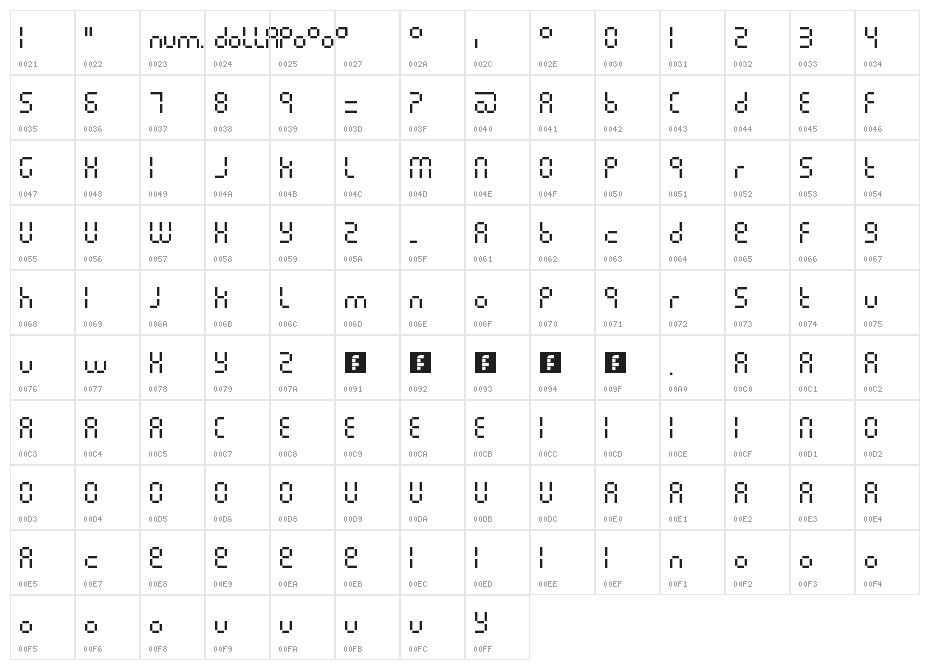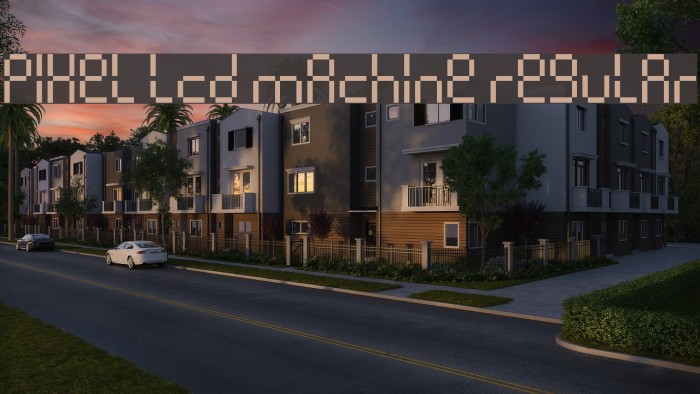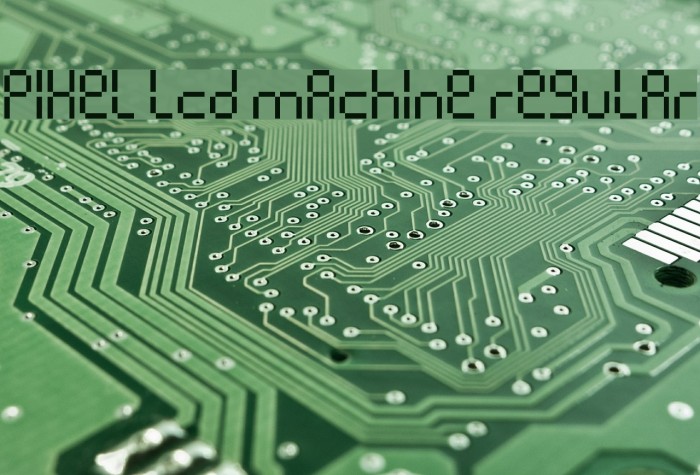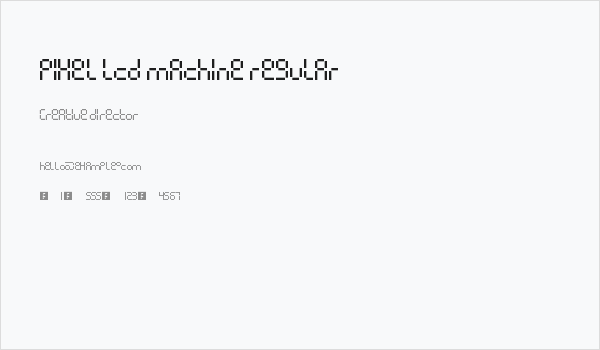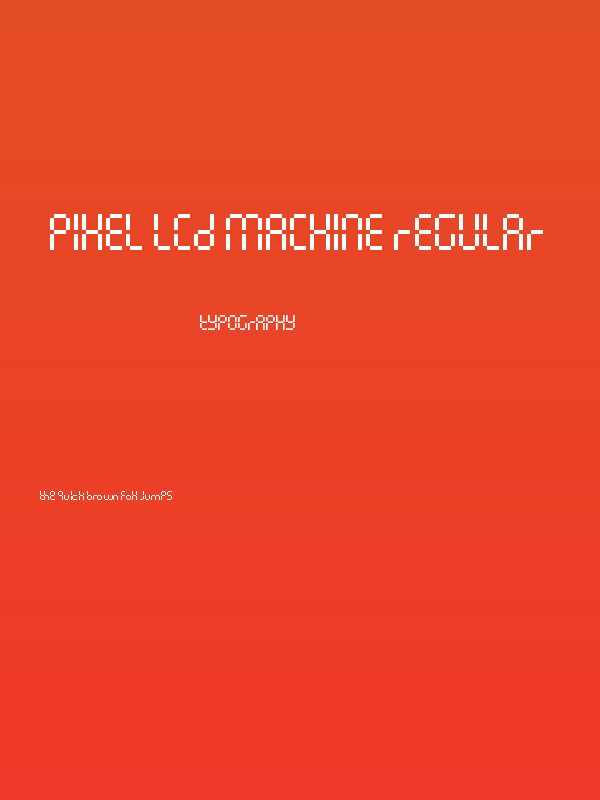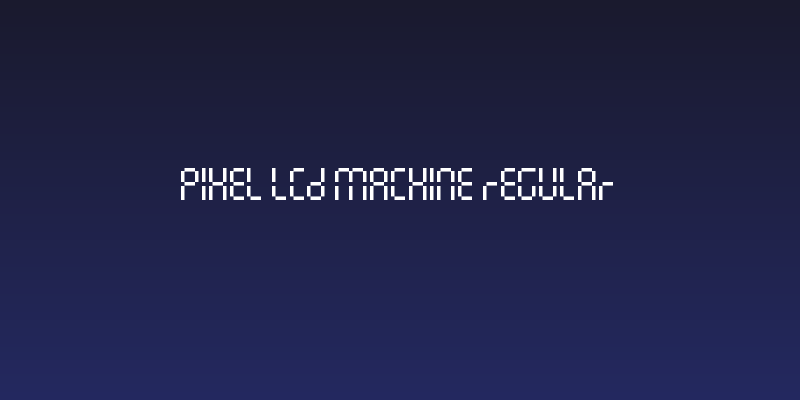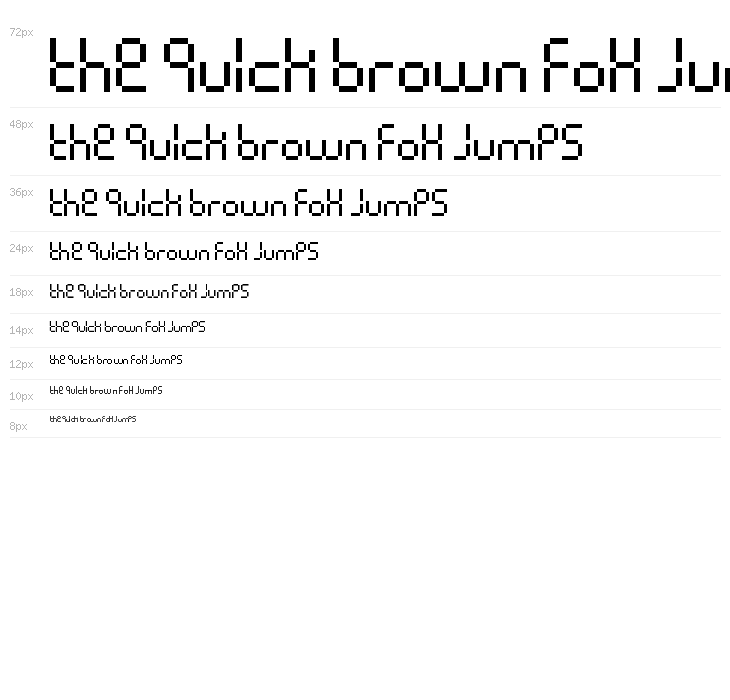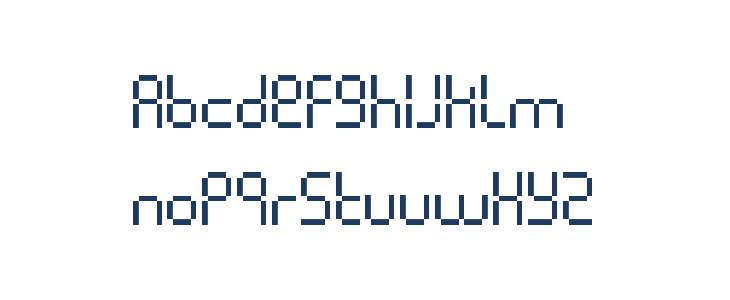
Pixel lcd machine Regular Font
Pixel lcd machine Regular Description
This font features a pixelated, grid-like design reminiscent of old LCD screens or digital displays. Each character is composed of small square blocks, giving it a distinctly retro and technological feel. The uniformity in the block structure provides a consistent and mechanical appearance, making it ideal for digital-themed projects. The characters are evenly spaced, maintaining a clean and organized look. This font captures the essence of early digital typography, making it suitable for projects that aim to evoke nostalgia or a tech-oriented aesthetic.
Overall StyleRetro, Digital
Use CaseHeadlines, Logos, Digital displays
Proposed ProjectsIdeal for retro video games, tech-themed posters, digital art, and any project requiring a vintage digital aesthetic.